Some brands need to look powerful the moment someone sees the logo — think comic-book heroes, action movie titles, or a brand that wants to feel larger than life. A good display hero font delivers that instantly: sharp, pointed serifs and bold structure that read as strength and confidence, not decoration.
This kind of typography does real commercial work beyond looking cool. Bold typefaces and energetic lettering can turn a poster, a social post, or a piece of branding into a genuine visual statement, which is exactly why comic-inspired display type keeps showing up in game menus, merchandise, and movie marketing rather than staying confined to actual comic books.
A standard bold serif might look strong, but it doesn’t carry the sharp, comic-inspired edge that hero-themed branding needs. Superhero and action branding lives or dies on typography that feels like it belongs on a movie poster or comic cover — something a generic display font can’t fake without the right structural details.
Metub is a superhero display font with a unique, powerful serif style, meticulously crafted with 52 stylistic alternate characters and 32 ligatures to convey strength in posters, logos, and branding materials.
Mather Laord leans into sharp, pointed serifs built for hero-themed branding — swords, ninjas, and action-driven identities — with 143 uppercase alternate characters and 34 ligatures for maximum typographic range.
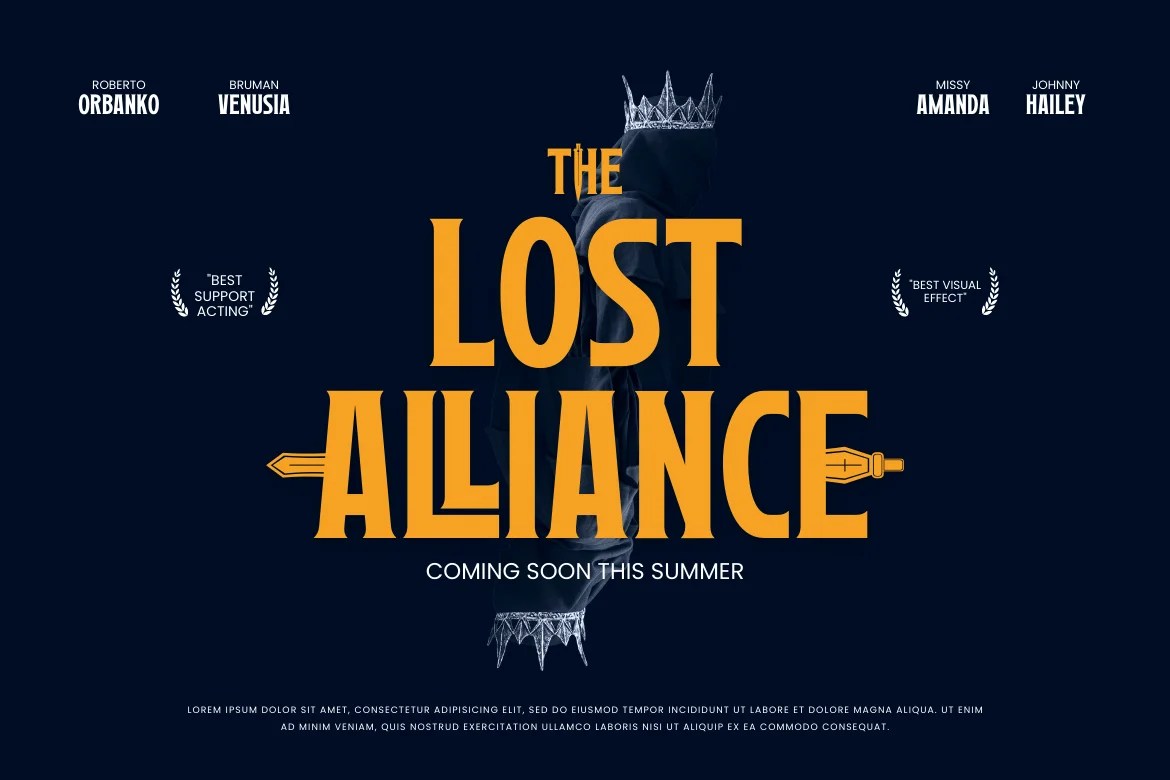
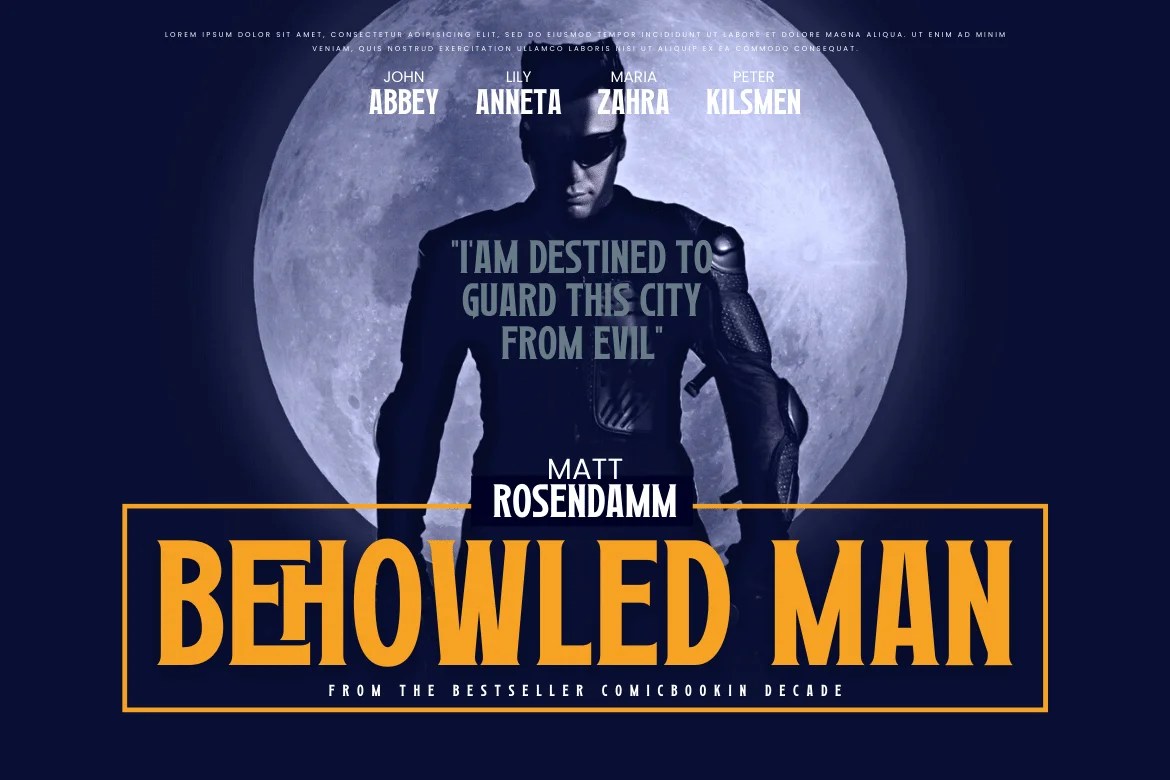
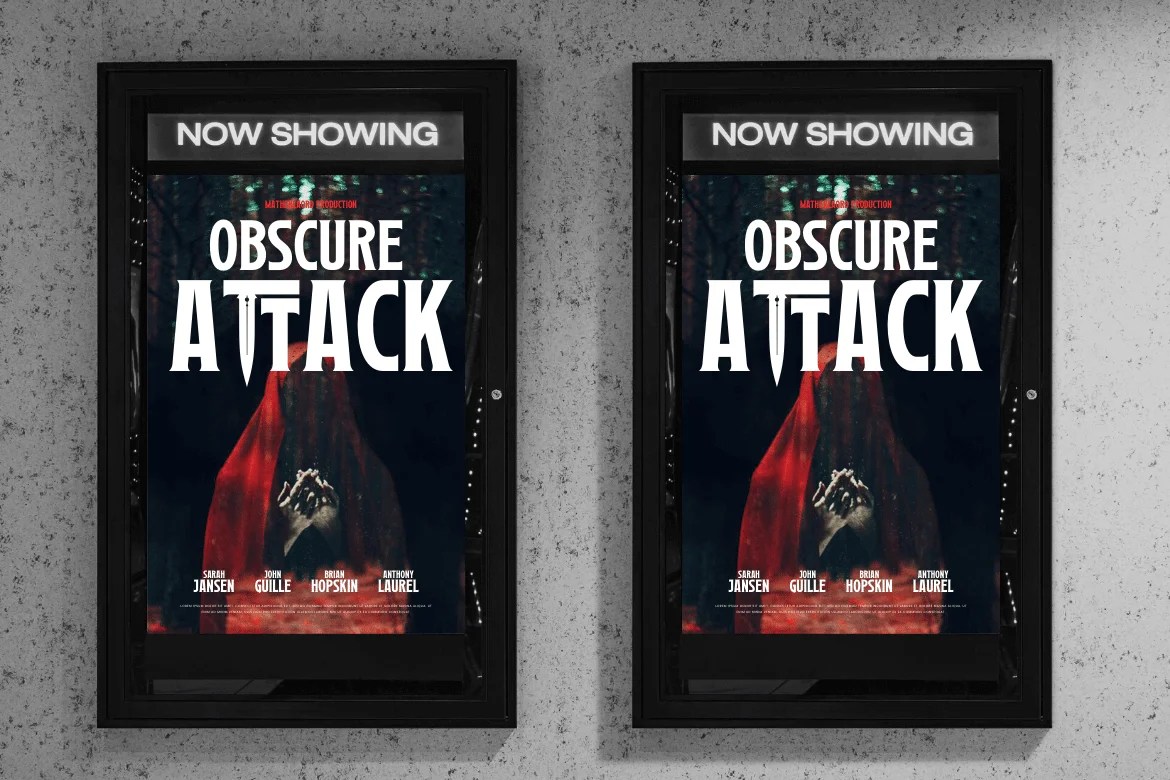
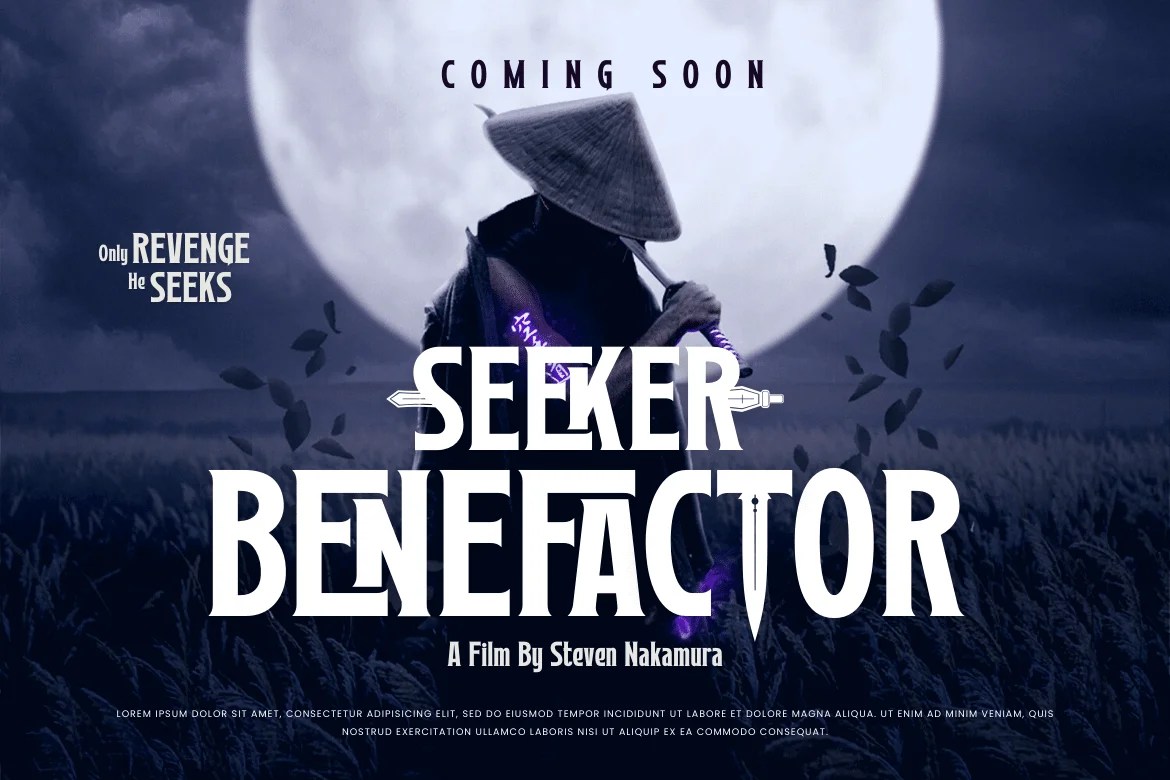
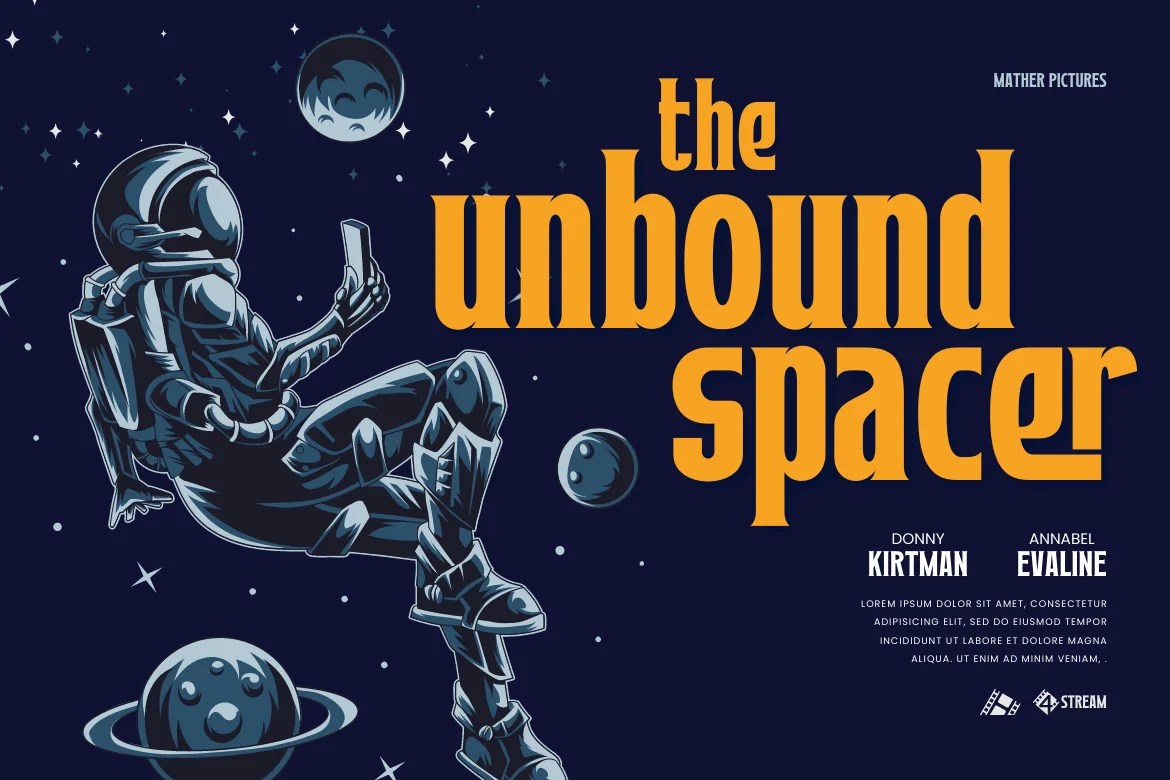
Across both, the shared feature set holds:
A display hero font shows up most often in:
Both fonts share the same powerful, hero-inspired philosophy. Metub leans slightly cleaner and more logo-ready, while Mather Laord’s sharper, more pointed serifs suit projects wanting an edgier, weapon-or-ninja-adjacent feel. Preview both against your actual brand name before committing.
What’s the difference between Metub and Mather Laord? Both share the same bold, hero-inspired serif philosophy. Metub is slightly cleaner and more logo-ready, while Mather Laord’s sharper, more pointed serifs lean toward an edgier, weapon-or-ninja-adjacent feel.
What makes a font suitable as a display hero font rather than a generic bold serif? It needs sharp, structural details — pointed serifs, strong stroke contrast — actually built into the letterforms, so it reads as powerful and comic-inspired rather than simply heavy.